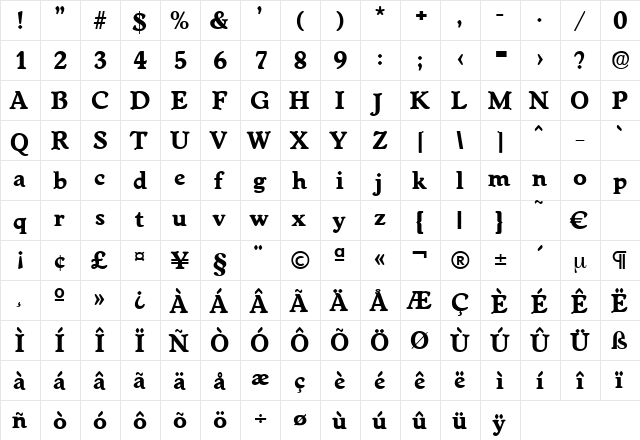
Worchester-Bold Regular Font Preview
Worchester-Bold Regular
Design Context for Worchester-Bold Typeface
Worchester-Bold takes a measured approach to typography — its balanced proportions and neutral character make it a reliable workhorse for both digital and print work. The heavy weight commands attention and anchors typographic hierarchies.